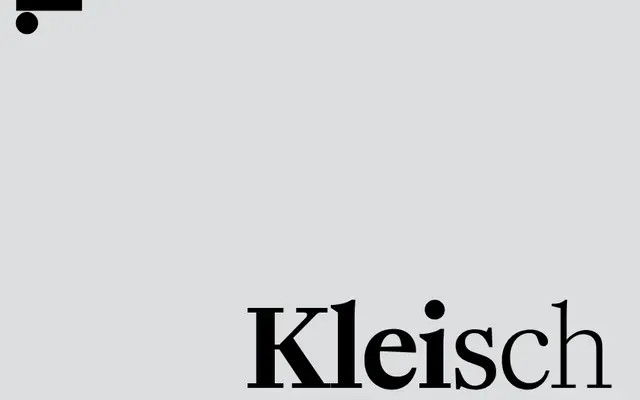
LL Kleisch
Lineto · Chiachi Chao
LL Kleisch specimen from Lineto
A serif designed by Chiachi Chao to sit harmoniously alongside Ming CJK typefaces, derived from shared transitional features in Latin and Chinese printing traditions.
Chiachi Chao identified formal correspondences between Latin serif and Ming letterforms that emerged during their respective periods of rationalisation, using those shared properties of stroke, ductus and proportion as the foundation for the design. The result works both as a standalone Latin text typeface and as a companion to a wide range of Ming fonts, addressing the persistent quality problem of Latin letterforms embedded within CJK type systems. Three optical subfamilies cover text, headline and display settings, supplemented by a variable family spanning upright and italic axes.
Described explicitly as a serif typeface; the design draws on transitional features shared between Latin serif and Ming (old-style CJK) typefaces, with rationalised stroke models and contrast informed by both traditions.